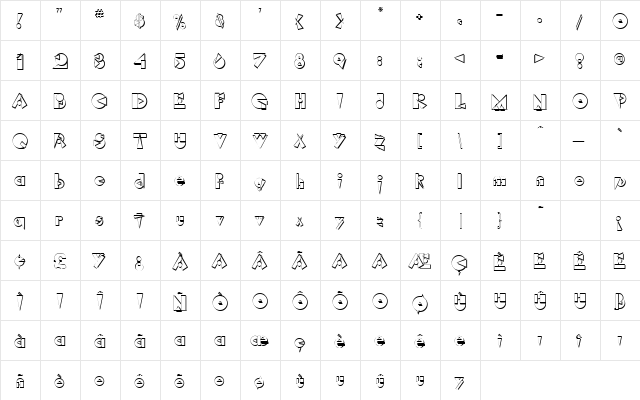
Rimrock Regular
Design Context for Rimrock Typeface
Rimrock is a composed and adaptable typeface that performs quietly and consistently across a wide range of design contexts.